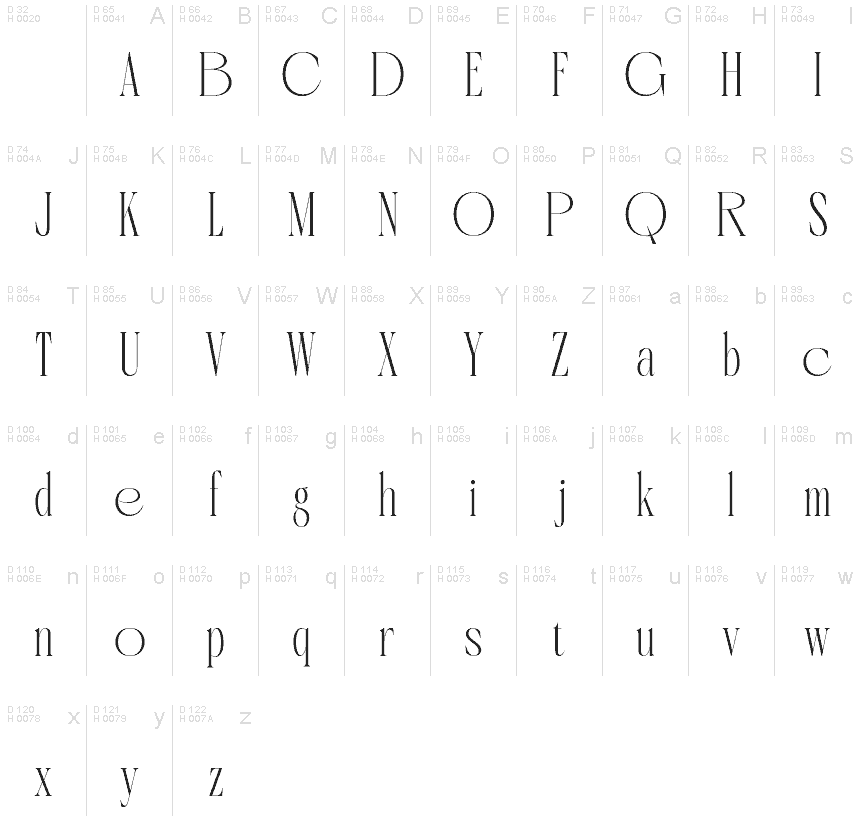
CS Golder Demo Regular
CS Golder font is a light serif by Craft Supply Co. that embodies elegance and sophistication. With refined curves and a modern touch, this font carries classic influences that present an artful appearance. This stylish collection offers an exclusive solution for memorable designs with carefully curated letters.